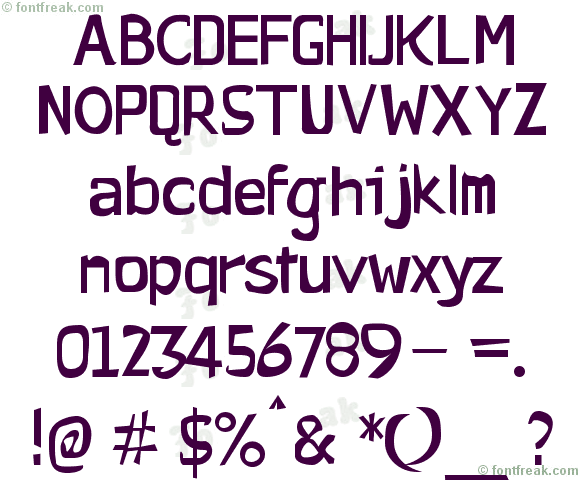
Pirates Writers
The Pirates Writers font, designed by Alvaro Thomaz, is a distinctive display typeface that captures the adventurous spirit of pirate lore and storytelling. This font falls into the decorative category, showcasing a playful and irregular design that evokes the essence of handwritten scripts. Characterized by a medium stroke weight and a casual, slightly slanted appearance, Pirates Writers features a mix of bold and light strokes that create an engaging visual contrast. The spacing between letters is thoughtfully designed to maintain legibility while enhancing its whimsical aesthetic, making it a great choice for creative projects.
This font is particularly well-suited for a variety of applications. It can add a unique flair to children's book covers, where its playful style can capture the attention of young readers. Additionally, Pirates Writers is an excellent choice for themed parties and events, such as pirate-themed birthdays, where it can be used on invitations and decorations. Graphic designers looking to create eye-catching posters for movie nights or fantasy films will find this font to be a perfect fit, as it exudes a sense of adventure and excitement. Small business owners in the food and beverage industry can also leverage this font for restaurant menus or promotional materials, adding character to their brand identity.
Targeted towards graphic designers, content creators, and small business owners, Pirates Writers offers a unique way to express creativity. The Pirates Writers font free download provides an opportunity for anyone to incorporate this charming typeface into their projects without any cost. Its distinctive style and versatility make it a standout choice for those seeking to infuse a sense of fun and adventure into their design work, ensuring that any project will have a memorable impact.